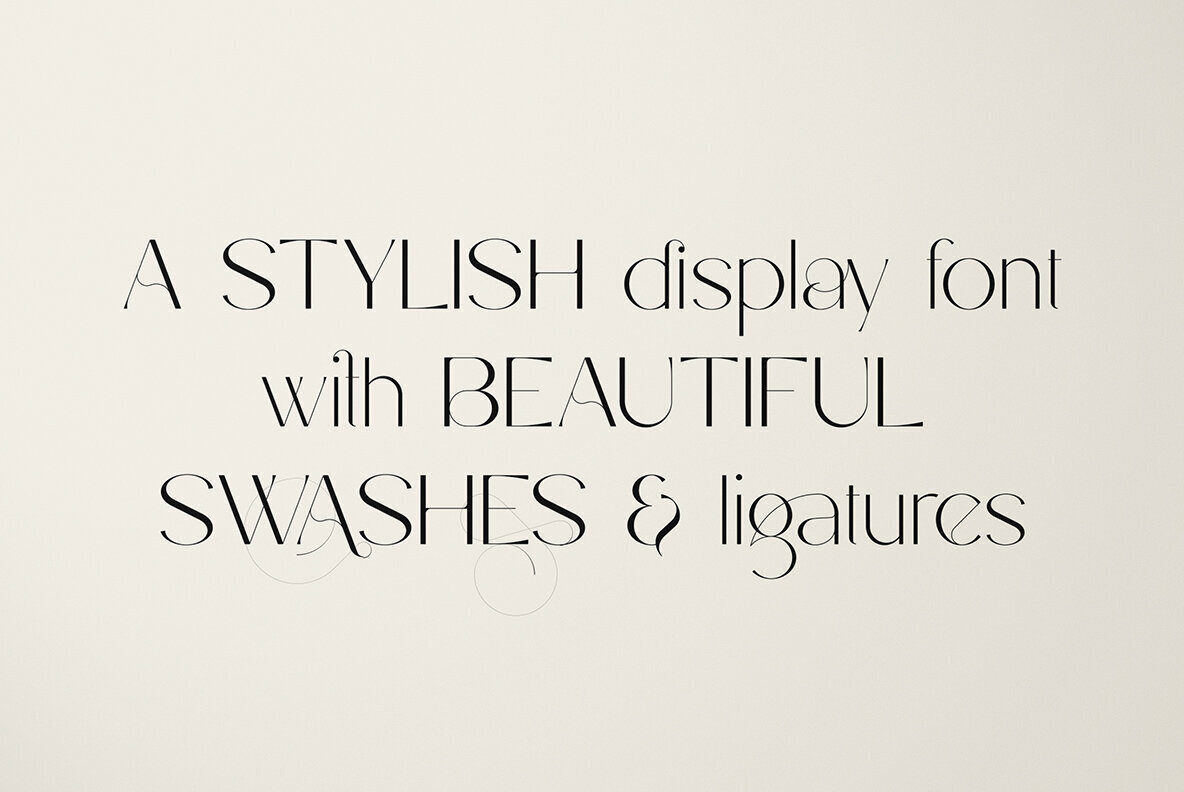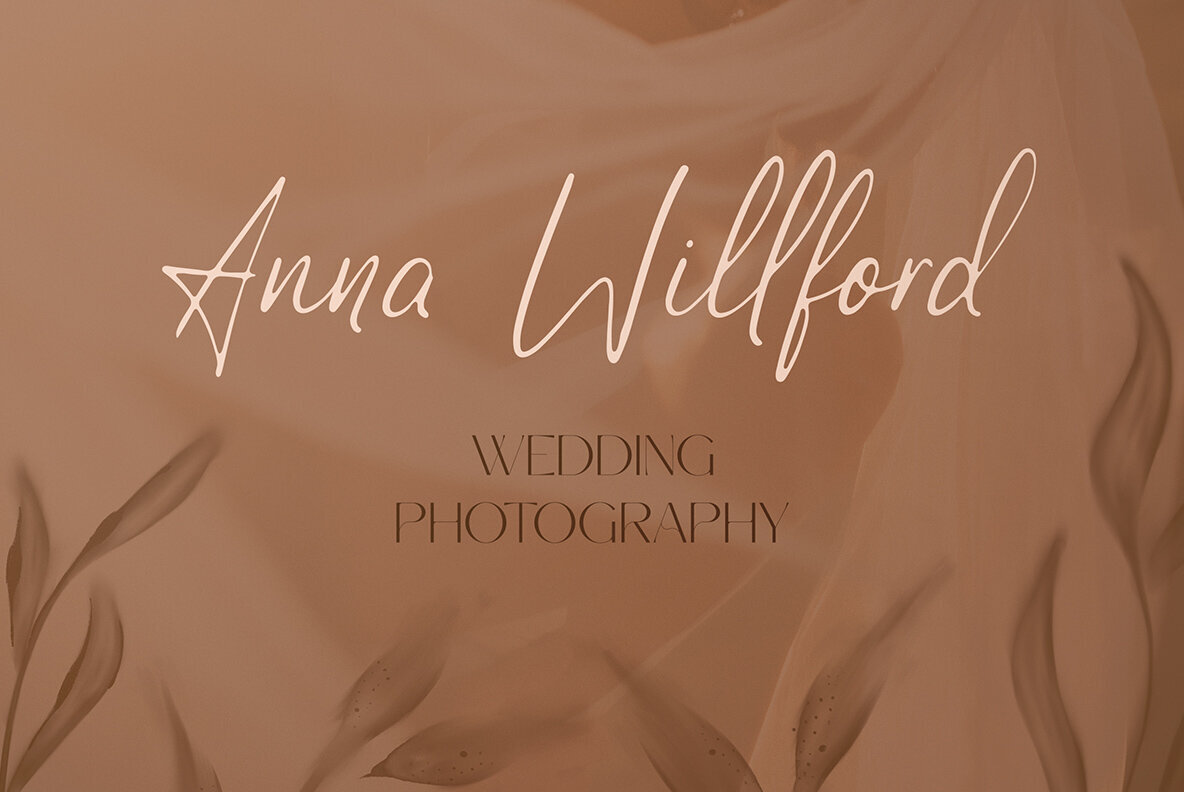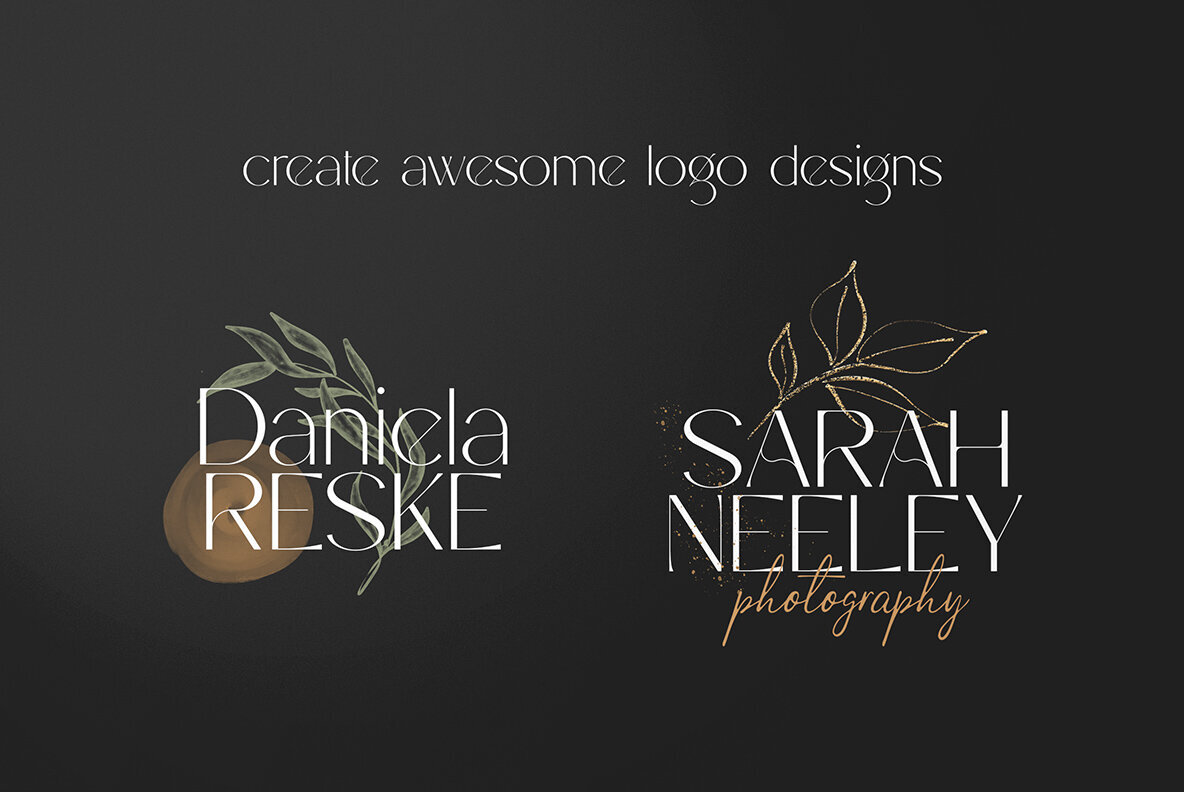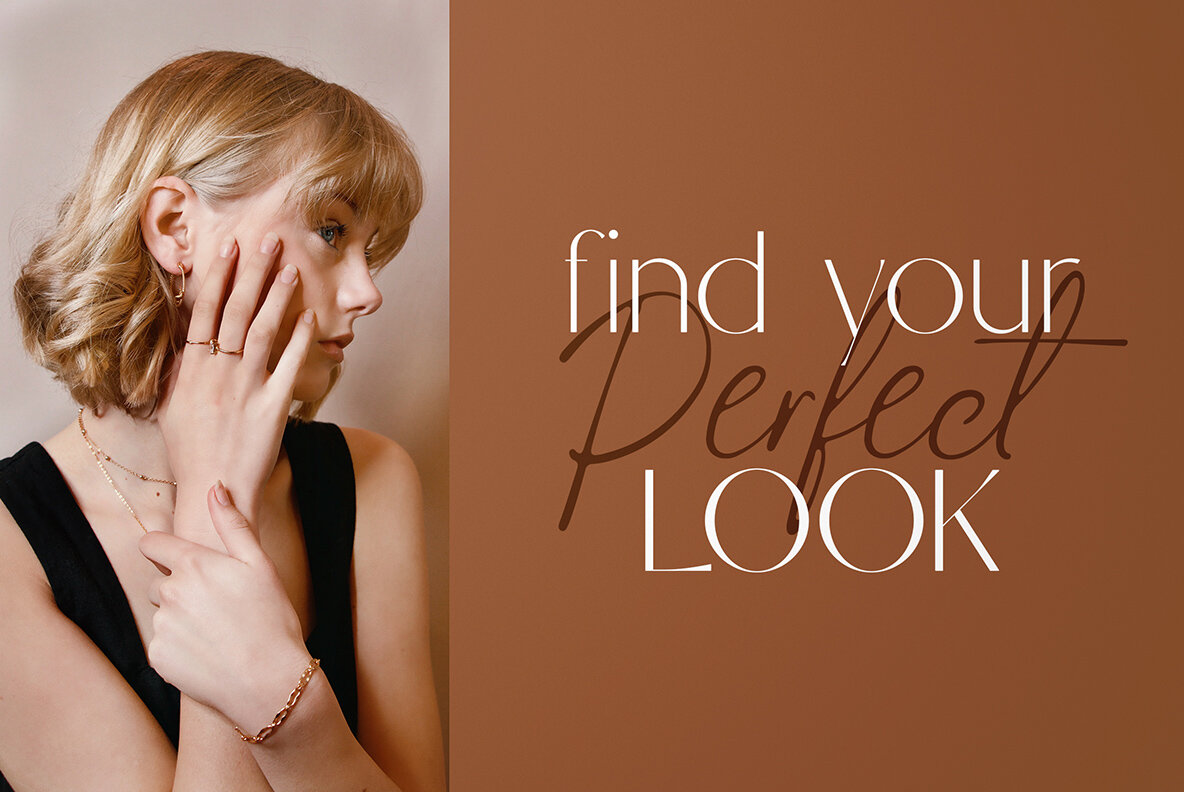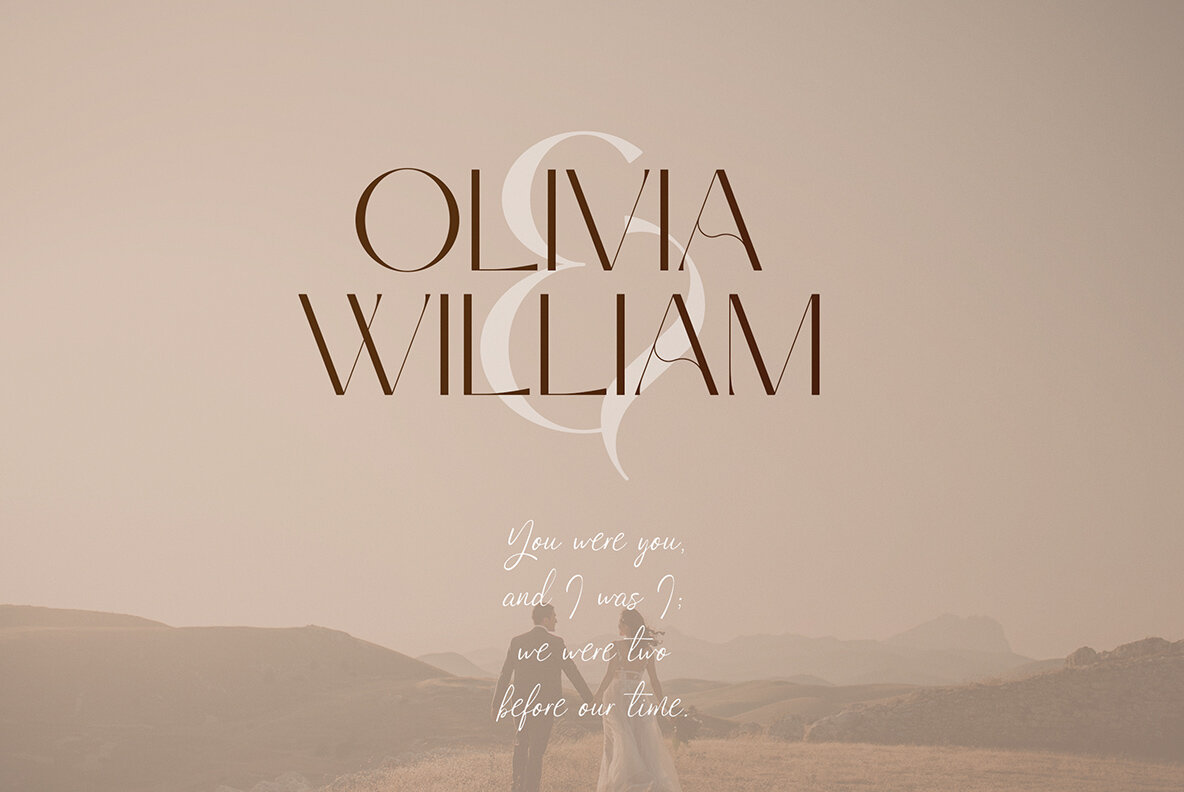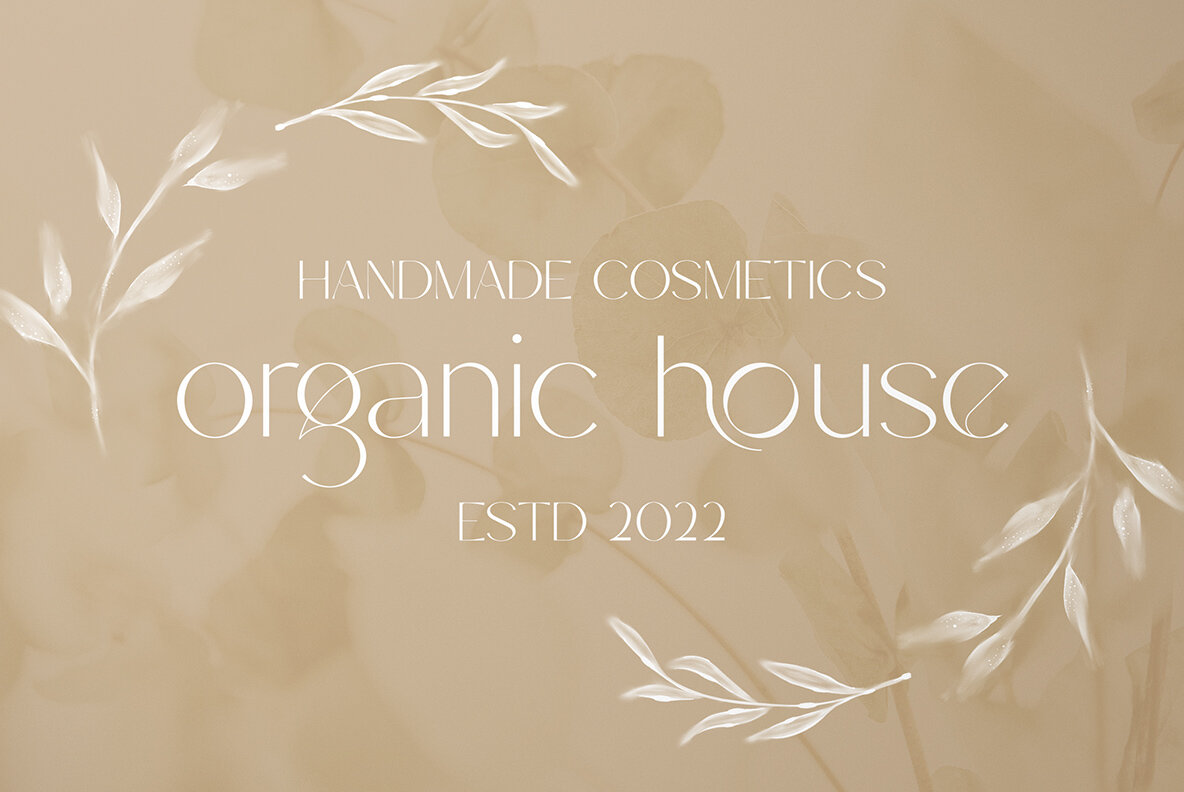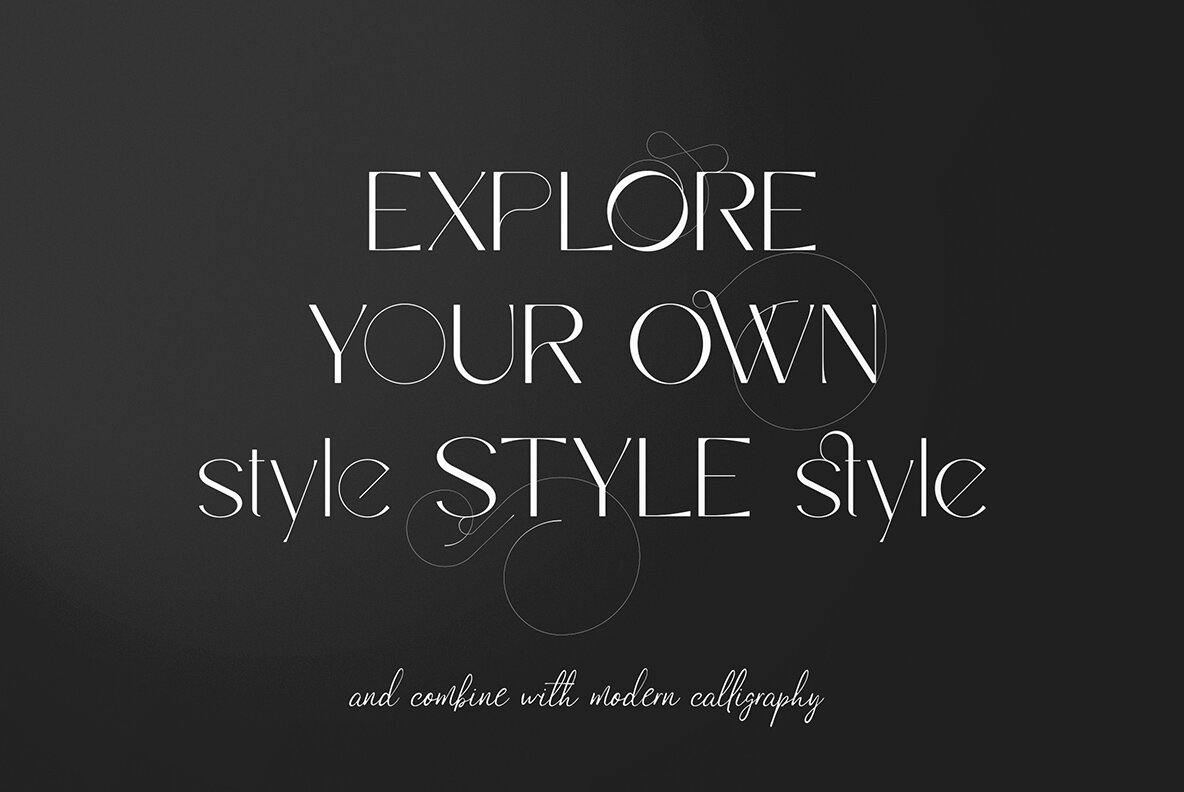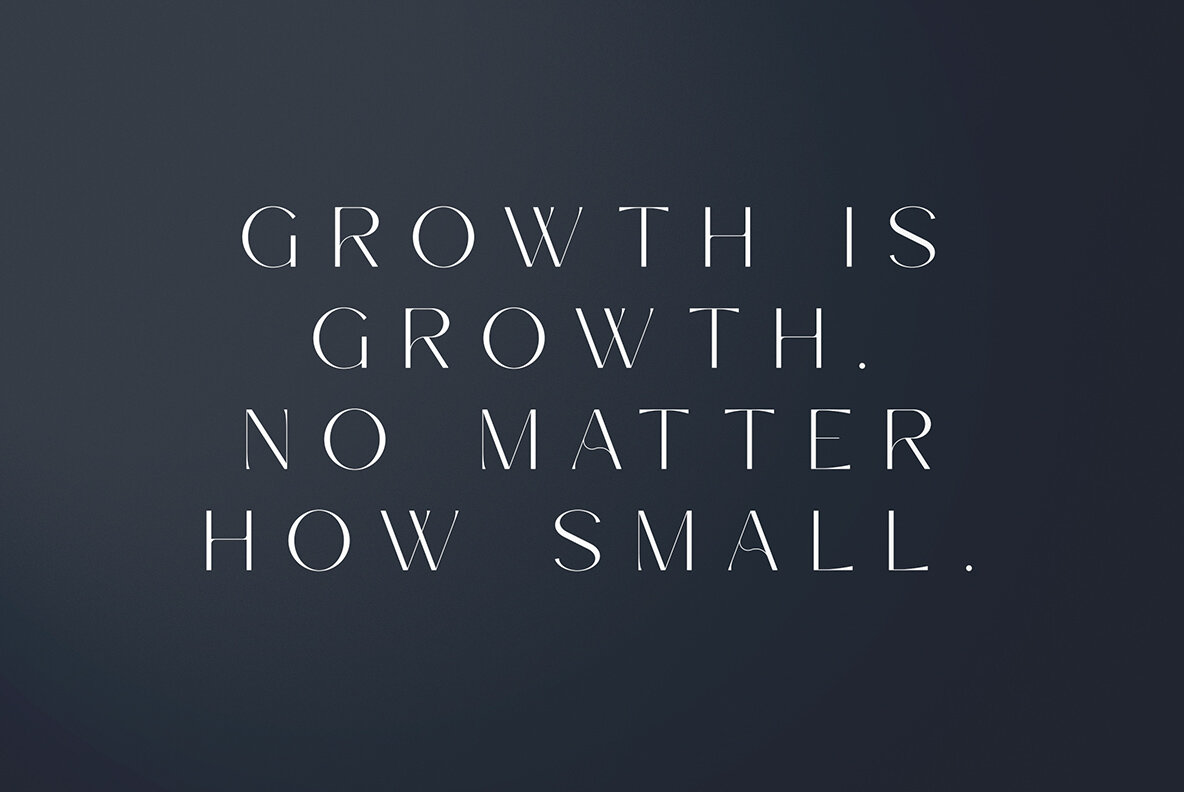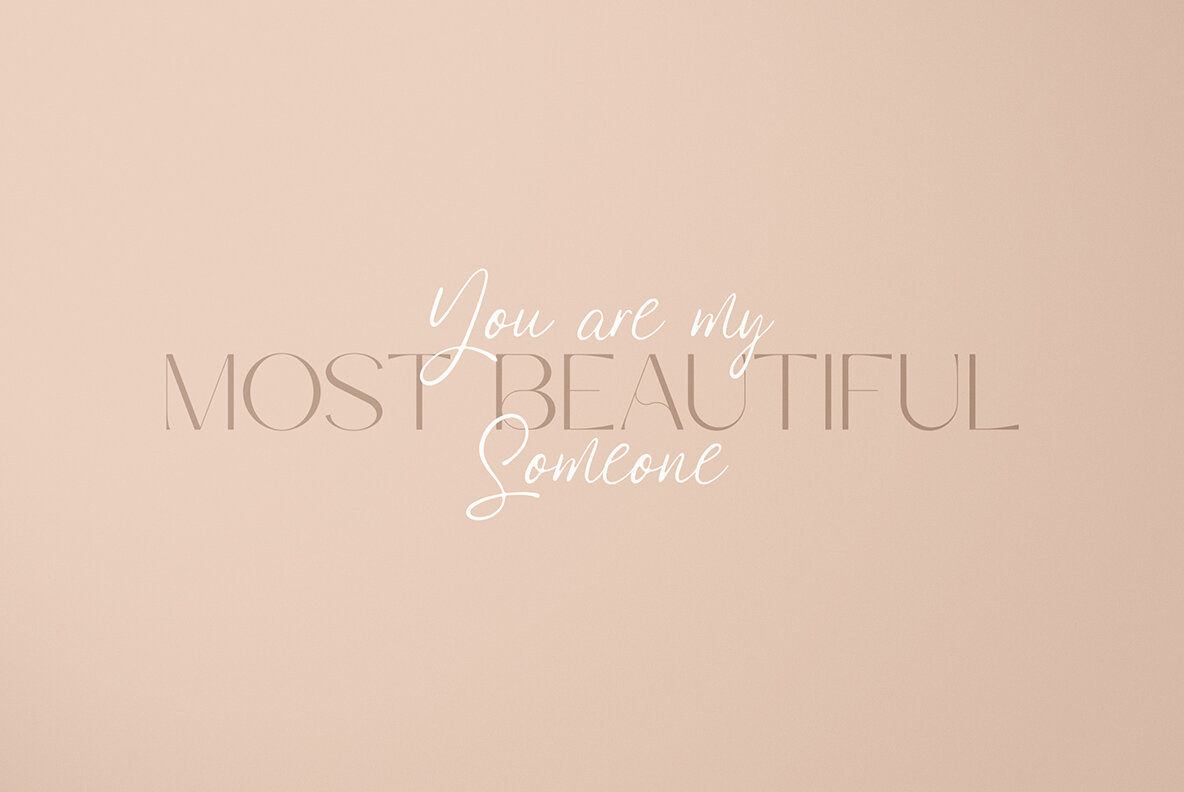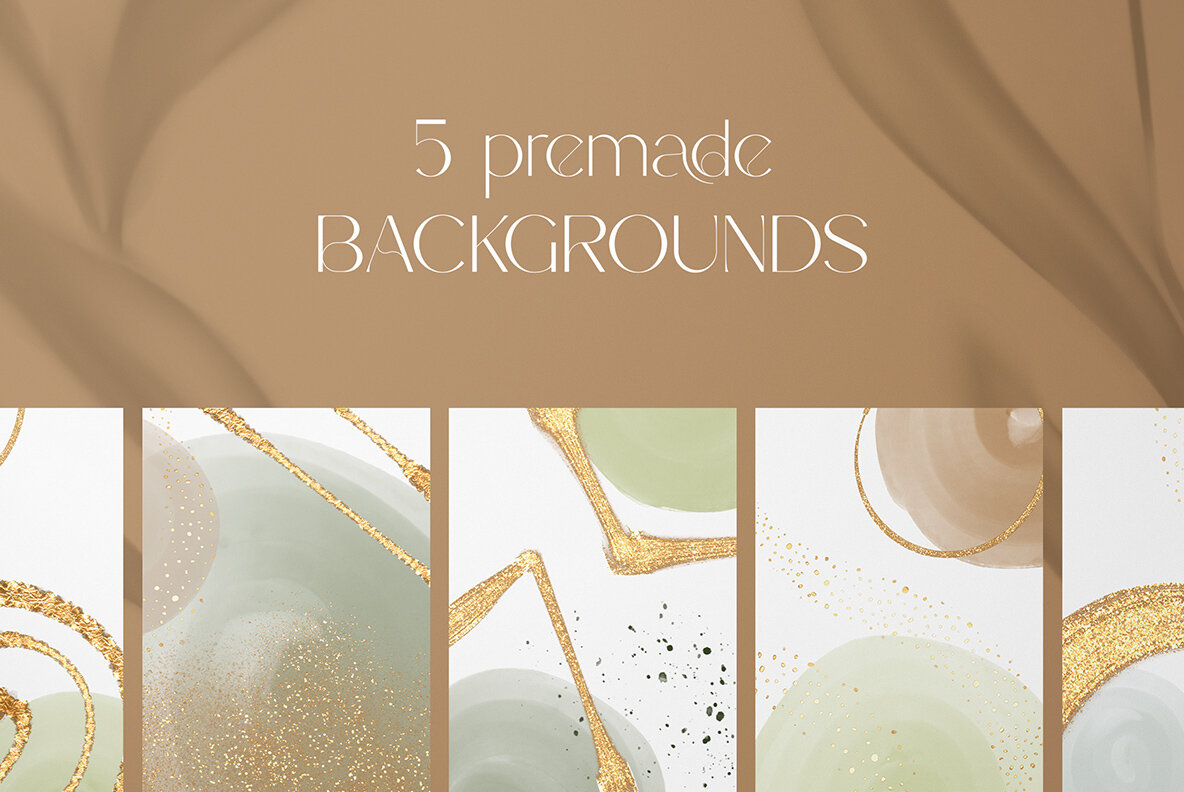
Stefania Font Duo
Stefania Font Duo by VP Creative Shop offers a dynamic blend of creativity and elegance ideal for diverse design needs. Supporting 95 languages, it seamlessly bridges Latin and Cyrillic scripts with a collection of alternate and ligature glyphs. This font duo, adorned with botanical, abstract elements, and artistic backgrounds, provides a platform for truly distinct typography.Stefania: A Versatile Font Duo With Rich Multilingual Support
Designed to eliminate the need for specialized software, Stefania invites designers to experiment with its elements effortlessly, making it an excellent choice for those looking to add character to their work.